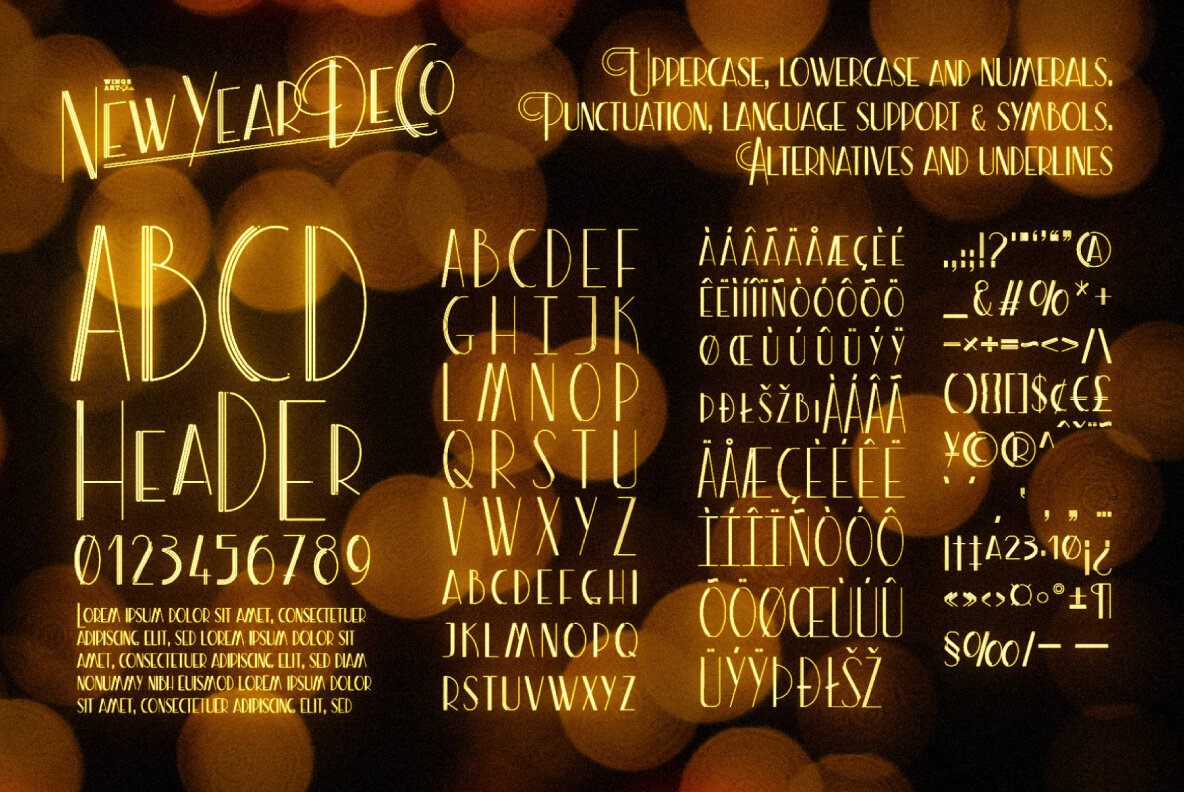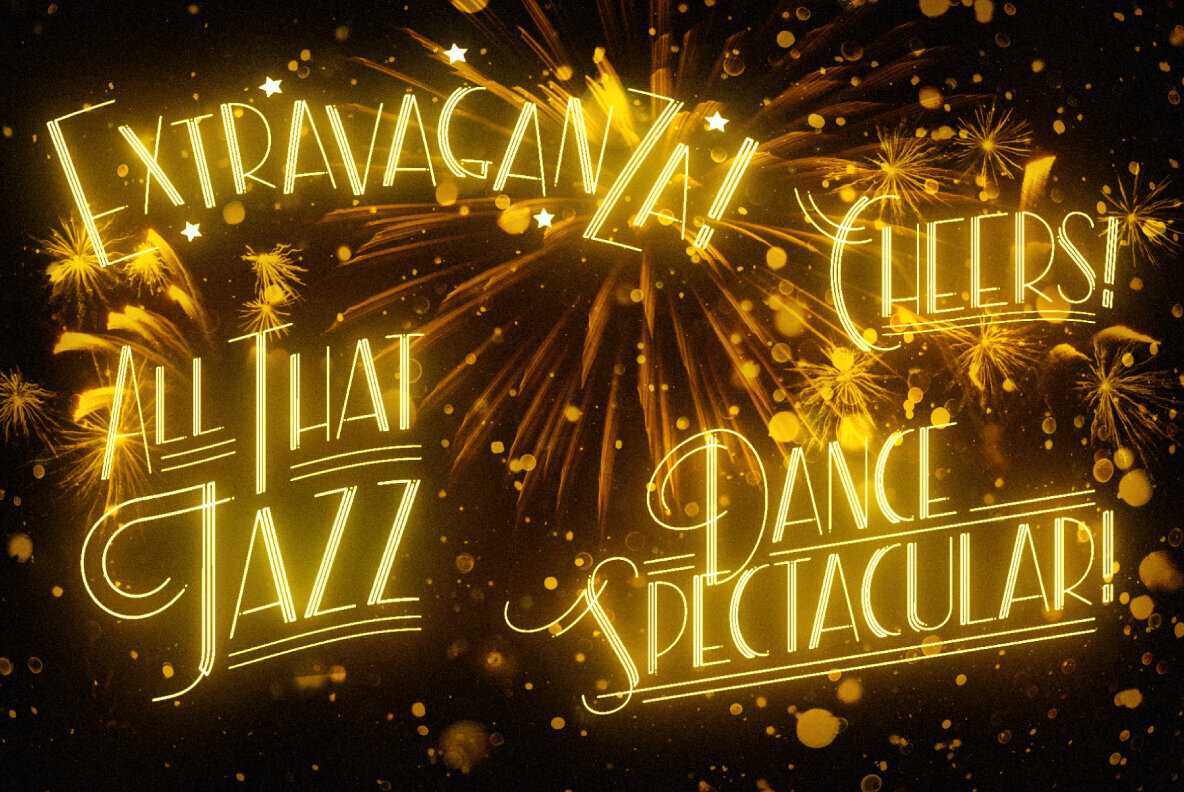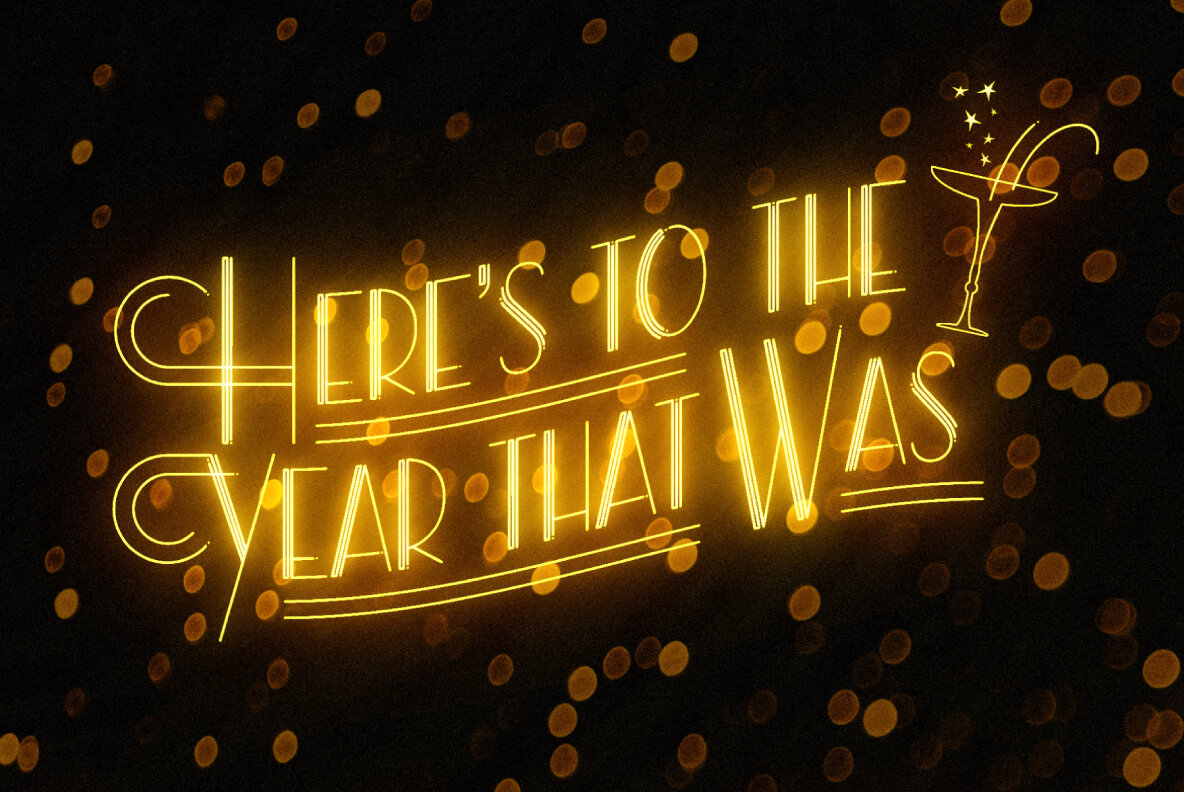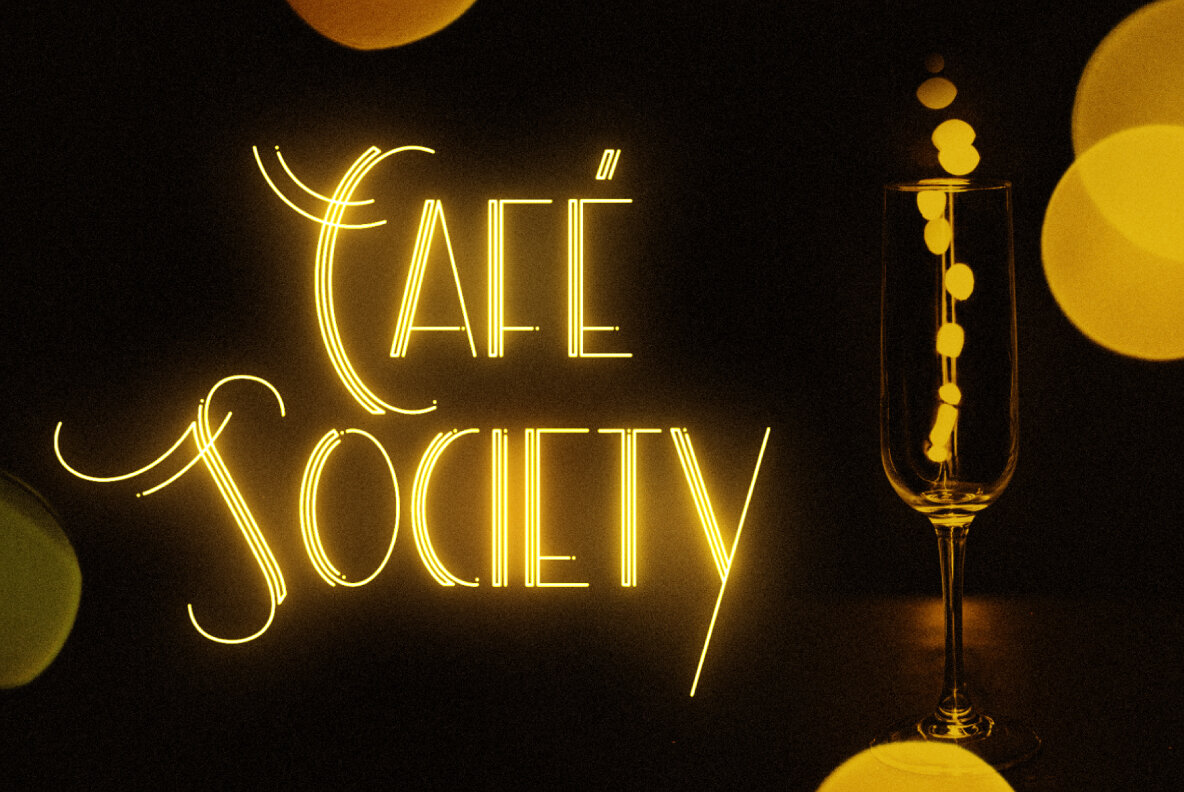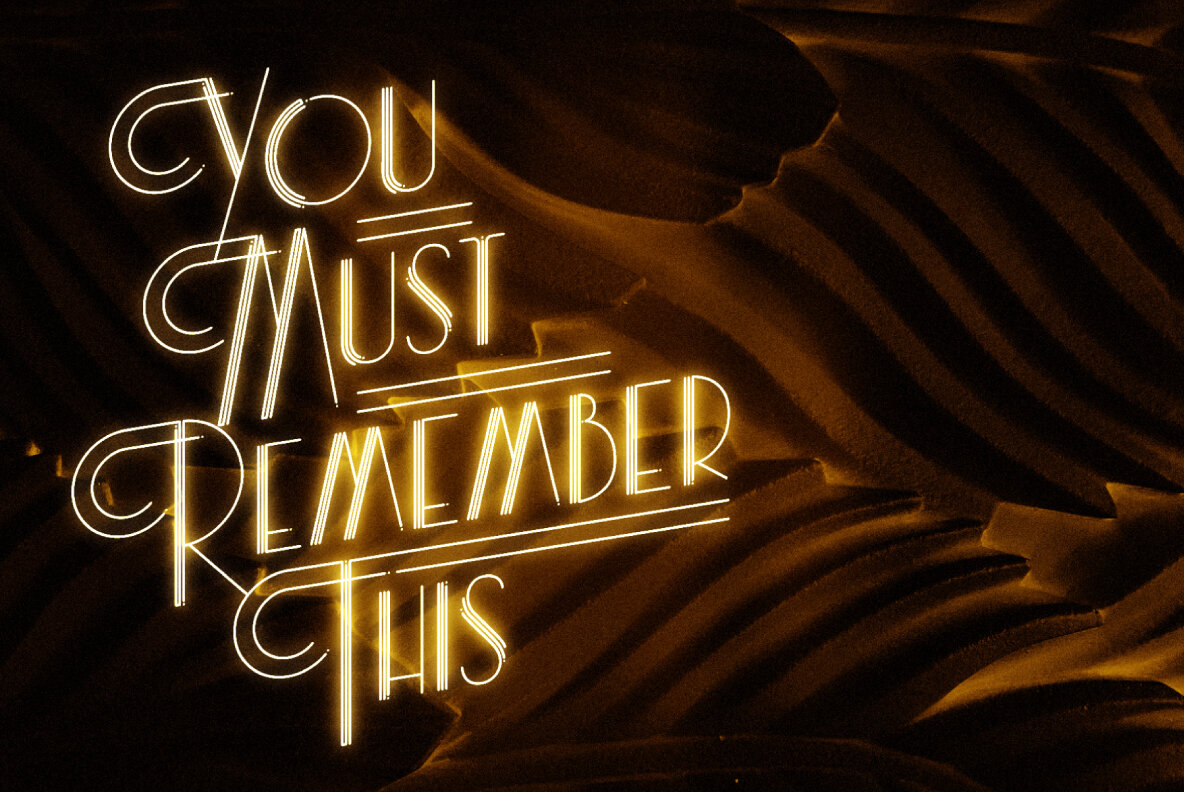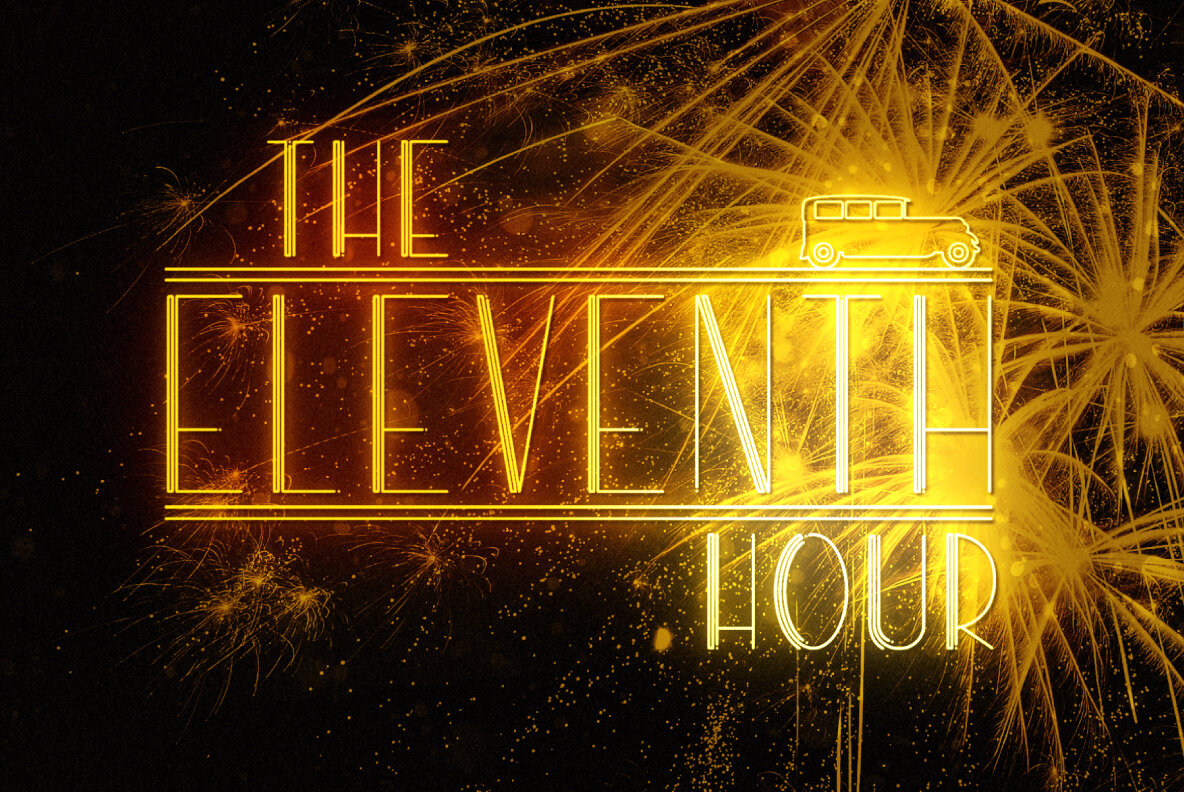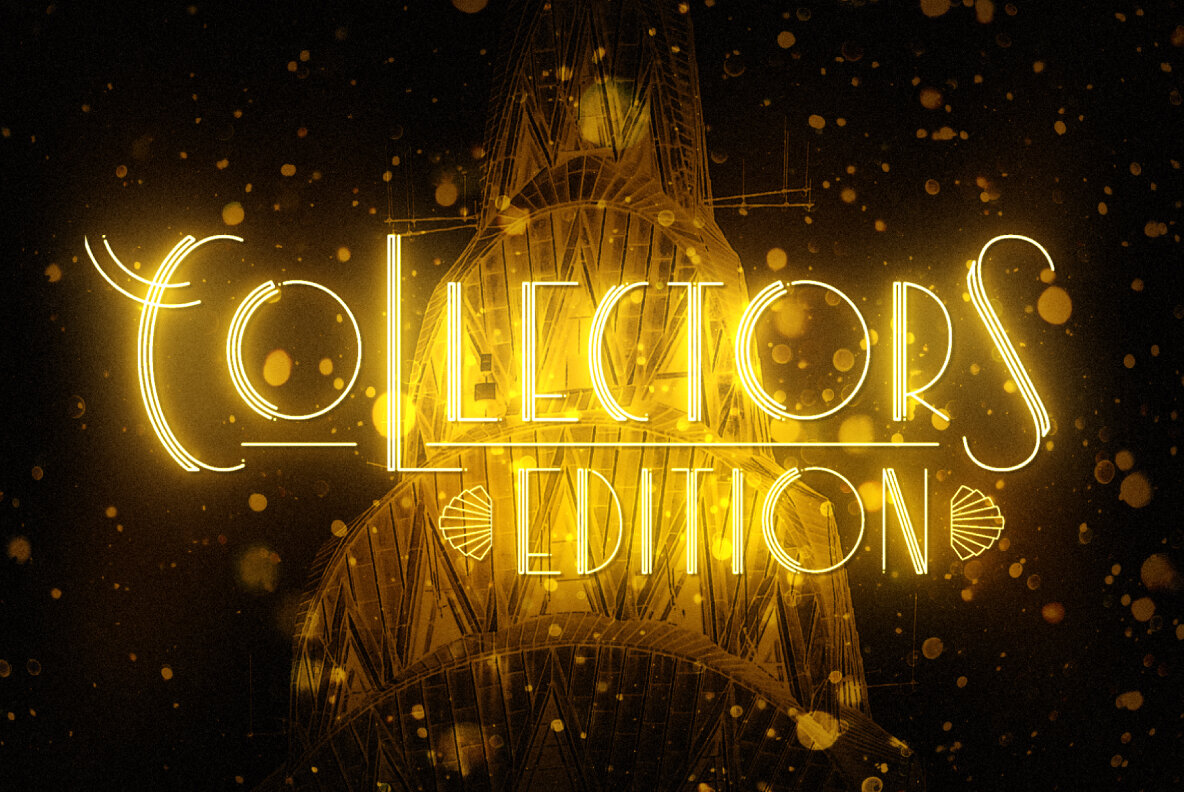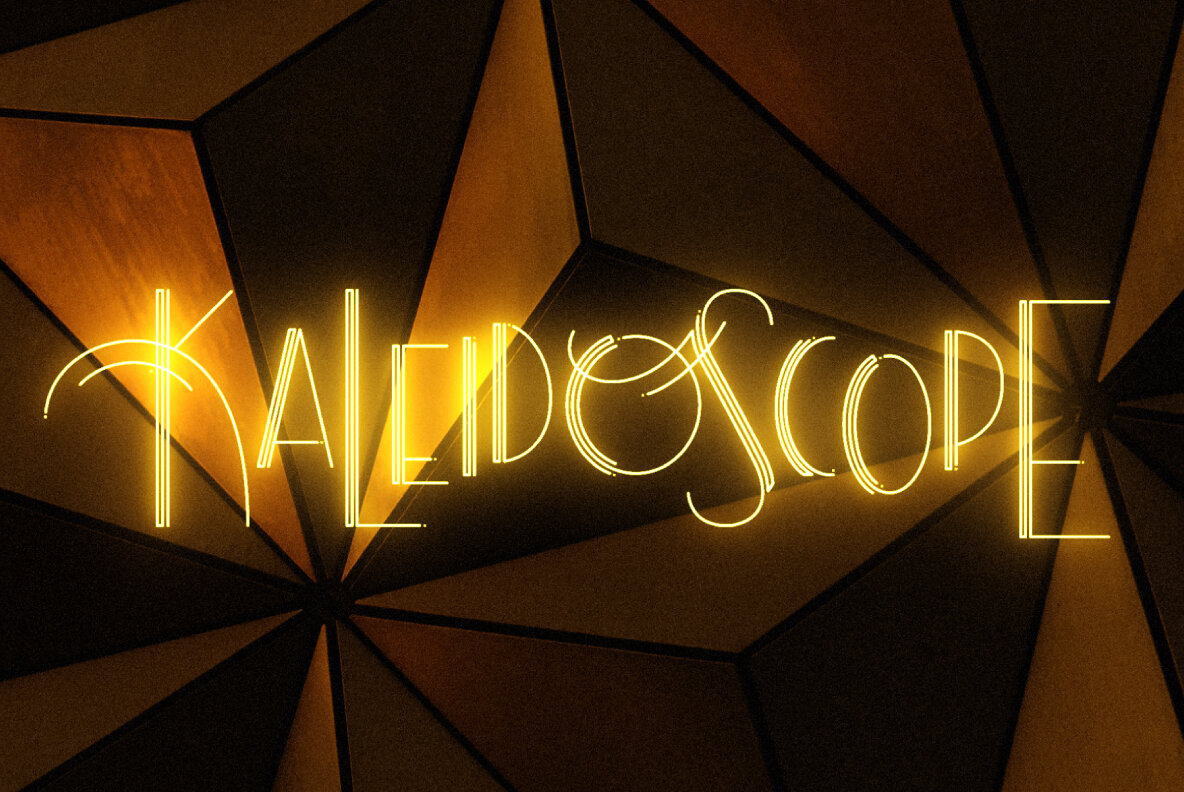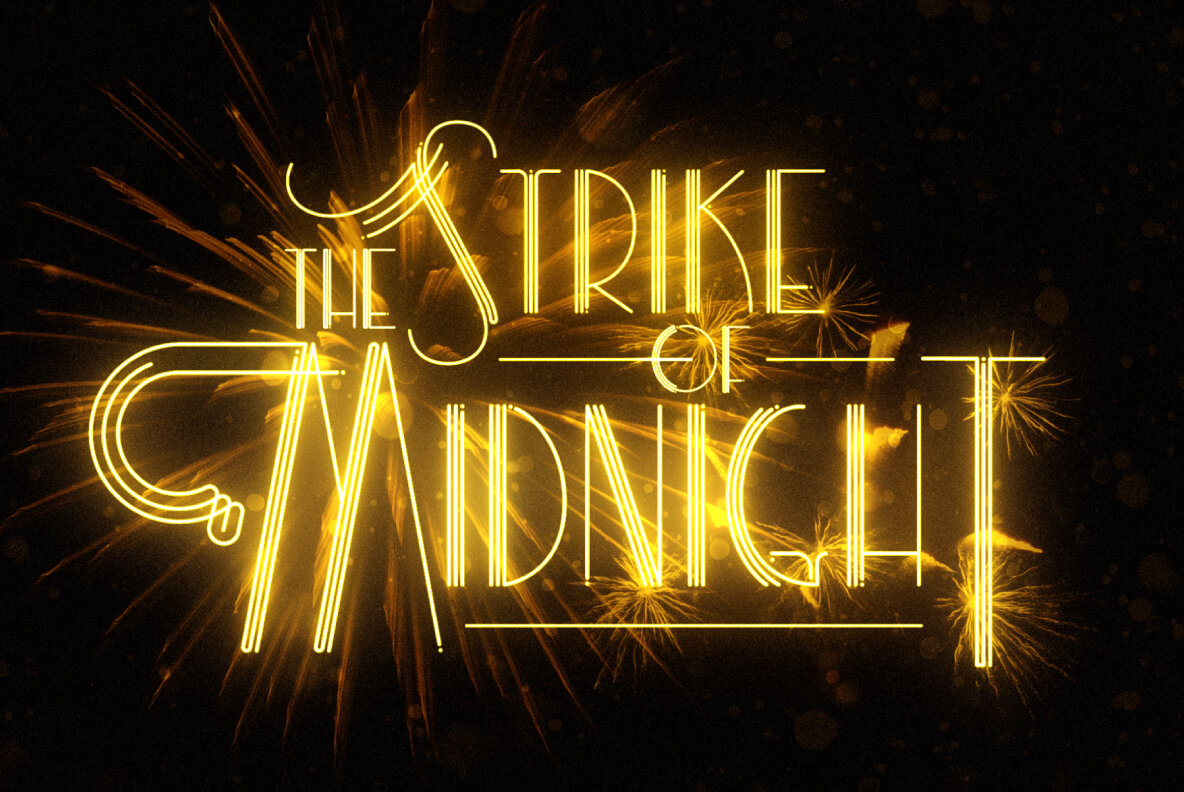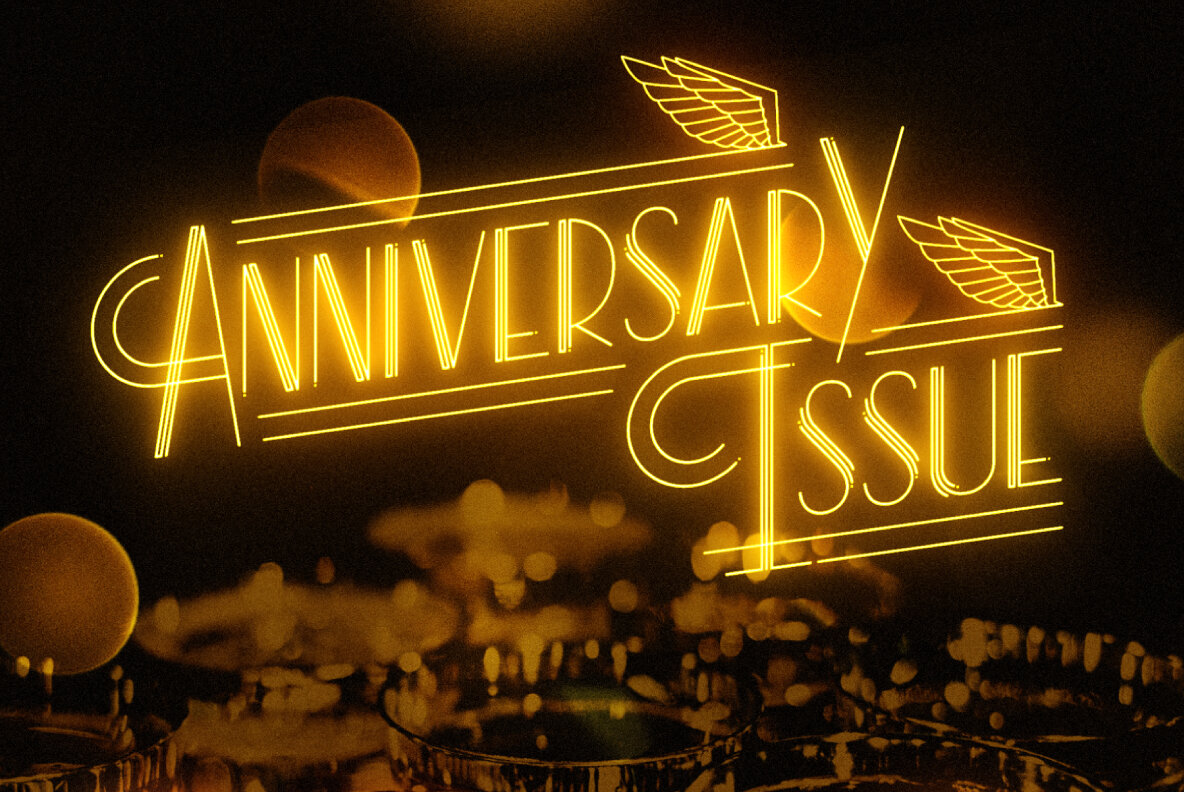
New Year Deco Font
Raise a glass to the New Year with this elegant, vintage inspired Art Deco header font. This first edition of New Year Deco is the introduction to an experimental design that I hope will evolve into the ultimate in Art Deco fonts. Starting with 4 alternative styles with varying degrees of decorative flourish, this all-caps design is tailor-made for invitations, award ceremonies, elegant title designs and logos. It includes unique uppercase and lowercase characters, along with numerals, punctuation and language support. And also includes a variety of illustrated symbols, underlines and icons for an extra graphic touch. See the visuals for more. For the future development of this font I encourage my customers to contact me with suggestions and requests. If you would like to see a bolder, thinner, fatter, taller or wider version, contact me and I’ll add it to the next update! For customers looking to replicate the look in my visuals, I’ve made a simple design template for After Effects, Photoshop and Affinity Photo 2. Available as a free extra to download via the link in the enclosed PDF. Contents: New Year Deco (Version 01) - Regular - Alternative 01 - Alternative 02 - Alternative 03 - Symbols - Preview PDF (with Free Design Template via Download)